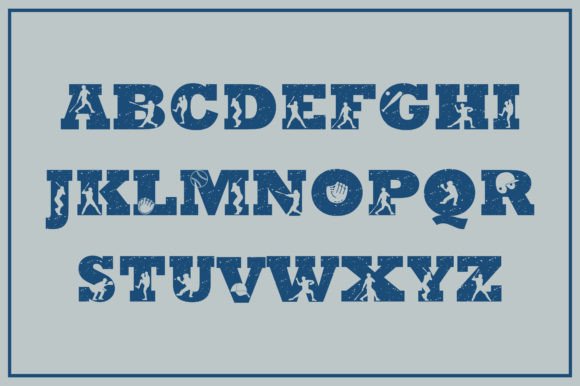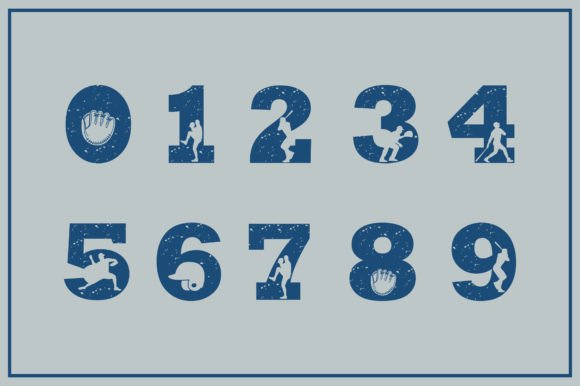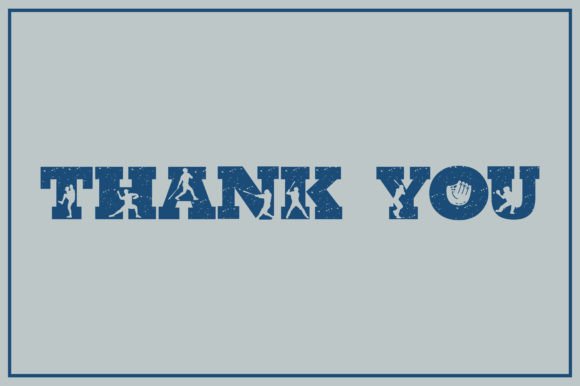
Introducing Baseball Grunge Font: The Perfect Addition to Your Design Projects
Are you a designer or crafter looking for a unique and dynamic font to add a touch of personality to your projects? Look no further than the Baseball Grunge Font! This fun and decorative display font is perfect for anyone looking to make a statement with their designs. In this article, we’ll take a closer look at the Baseball Grunge Font, its features, and how you can use it to elevate your design projects.
What is Baseball Grunge Font?
Baseball Grunge Font is a decorative display font that is inspired by the classic look of baseball jerseys and the edgy feel of grunge graphics. The font features bold, distressed letters with a sporty vibe that’s perfect for designs that need a bit of attitude. Whether you’re creating a logo, poster, or social media graphic, this font is sure to grab attention and make your design stand out.
Key Features of Baseball Grunge Font
- Unique and Dynamic Design: The Baseball Grunge Font features a one-of-a-kind design that’s both fun and dynamic. The distressed letters give the font a worn, vintage look that’s perfect for designs that need a bit of grit and character.
- Highly Versatile: This font is perfect for a wide range of design projects, from sports-themed designs to crafty DIY projects. You can use it to create logos, posters, social media graphics, and more.
- Easily Customizable: The Baseball Grunge Font is easy to customize, so you can adjust it to fit your design needs. You can change the color, size, and style to match your brand or project’s aesthetic.
- Perfect for Crafty Projects: If you’re a crafter or DIY enthusiast, you’ll love the Baseball Grunge Font. You can use it to create custom signs, iron-on designs, and more.
How to Use Baseball Grunge Font in Your Design Projects
Using the Baseball Grunge Font in your design projects is easy! Here are a few ideas to get you started:
- Create a Sports-Themed Design: Use the Baseball Grunge Font to create a logo or poster for a sports team or event. The font’s sporty vibe is perfect for designs that need a bit of energy and excitement.
- Add a Personal Touch to Your Crafts: If you’re a crafter or DIY enthusiast, you can use the Baseball Grunge Font to add a personal touch to your projects. Try using it to create custom signs, iron-on designs, or other decorative elements.
- Make a Statement with Your Social Media Graphics: Use the Baseball Grunge Font to create eye-catching social media graphics that will grab attention and make your followers take notice.
Why Choose Baseball Grunge Font?
So why choose the Baseball Grunge Font for your design projects? Here are a few reasons:
- Unique and Eye-Catching: The Baseball Grunge Font is a one-of-a-kind font that’s sure to grab attention and make your designs stand out.
- Highly Versatile: This font is perfect for a wide range of design projects, from sports-themed designs to crafty DIY projects.
- Easily Customizable: The Baseball Grunge Font is easy to customize, so you can adjust it to fit your design needs.
| Font Name | Baseball Grunge Font |
| Author | AvocadoSVG |
In conclusion, the Baseball Grunge Font is a fun and dynamic decorative display font that’s perfect for designers and crafters looking to add a touch of personality to their projects. With its unique and eye-catching design, high versatility, and ease of customization, this font is sure to become a go-to in your design arsenal. So why wait? Add the Baseball Grunge Font to your projects today and see the amazing results for yourself!